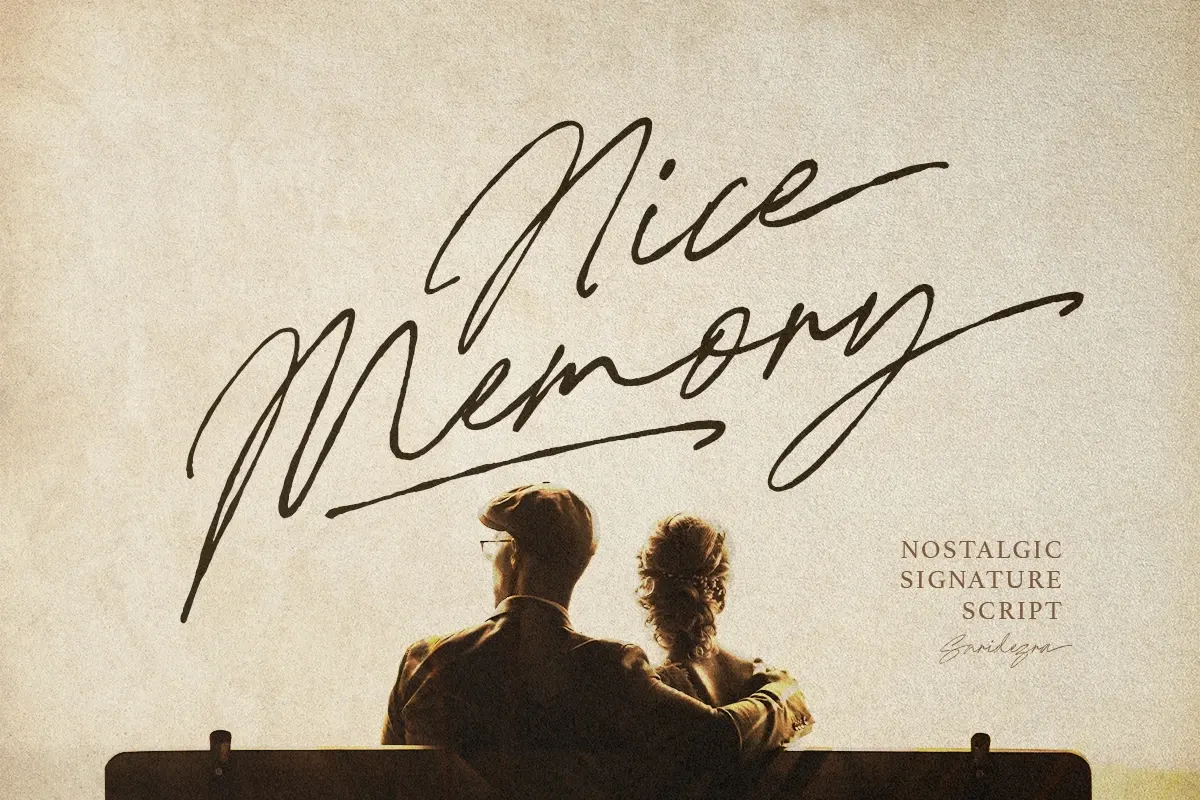
Nice Memory - Nostalgic Script Free Download
Nice Memory - Nostalgic Script Font Free Download
Sweet, retro, and full of personality, Nice Memory - Nostalgic Script Font Free Download captures the charm of vintage handwriting with a modern twist. Its smooth curves and flowing strokes make it the perfect choice for logos, greeting cards, wedding designs, retro posters, and nostalgic branding projects.
Designed to bring warm, sentimental vibes to your text, Nice Memory is a script font that’s both expressive and easy to read. Whether you're aiming for a 70s-inspired aesthetic or simply want a touch of timeless elegance, this font will add emotional depth and visual appeal to any layout.